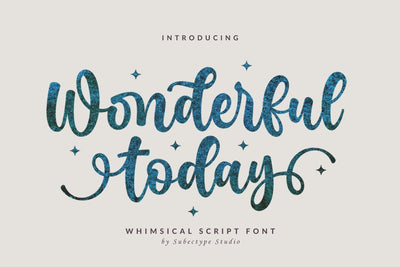
Wonderful Today - Cute Script Font
Wonderful Today is a Whimsical Display font, described by a Cute style touch, perfect for your favorite projects.
Fall in love with its incredibly distinct and timeless style and use it to create spectacular designs!